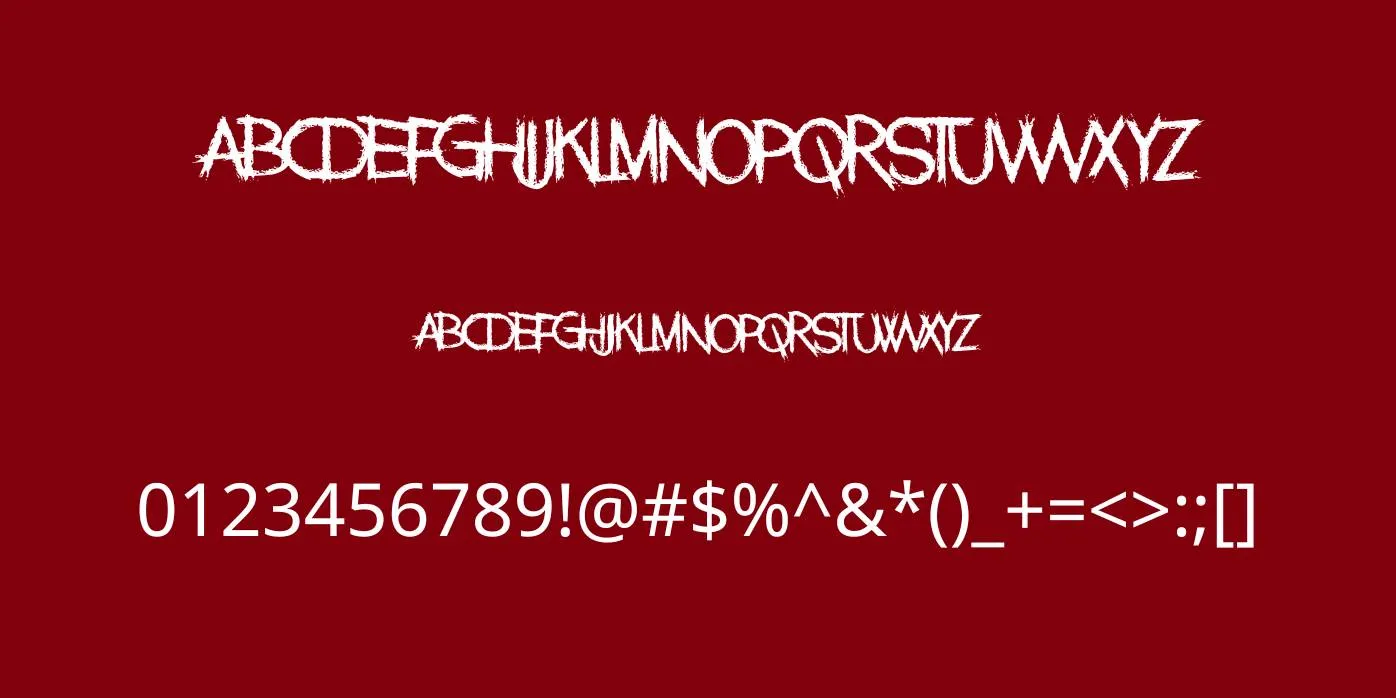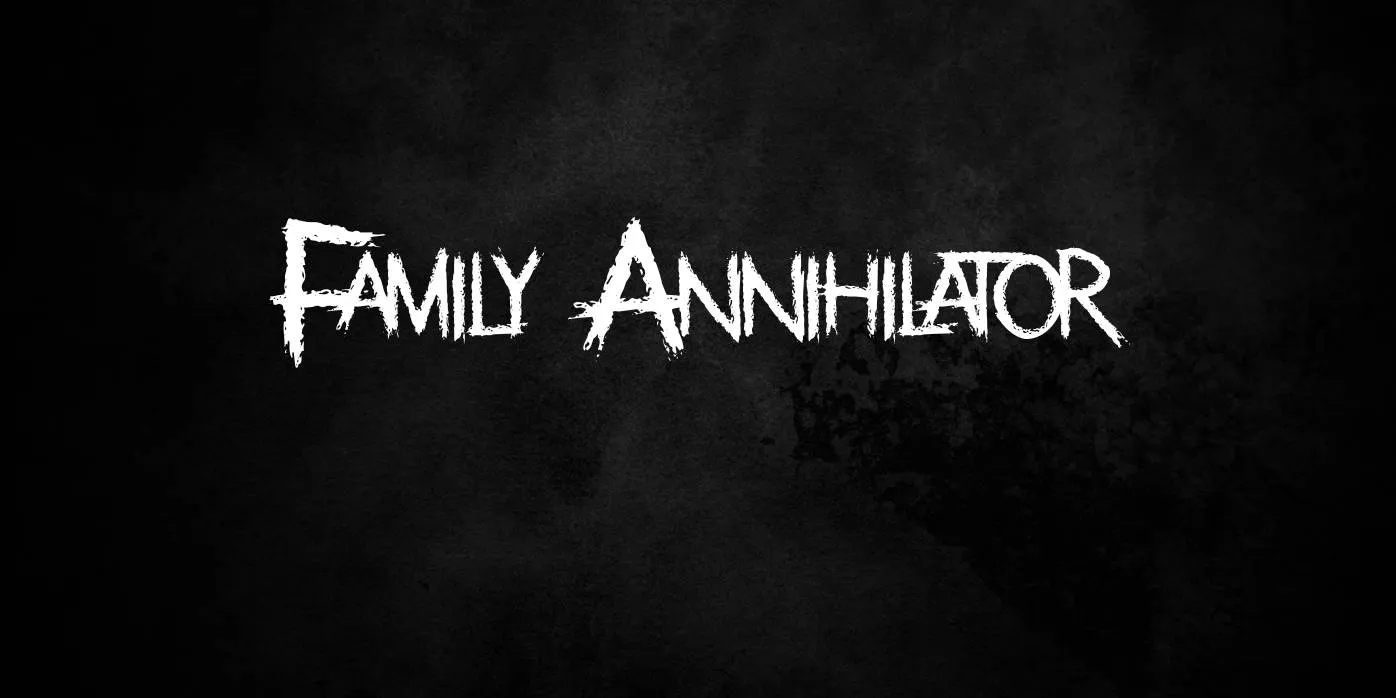
Family Annihilator Font
Today we discuss a very horror look typeface design named Family Annihilator font. This stunning font was designed by Font Monger that belongs to the fancy texture family. You can make so many horror projects by using this font. It has many different features like 57 characters, 56 glyphs.
The font weight and its width is medium that you can download in both TTF (True Type Font) and OTF(Open Type Font) file formats.  An online generator tool is also available in which you can copy and paste your text and convert it into a very stylish or scary look with this font. You can use this font for pairing with other fonts like hogan mania font to give a more attractive look to your projects. Usage This font can be read easily so you can use It for many projects. You can make attractive logos and titles for any kind of horror movie or TV series.
Family Annihilator font was designed by Font Monger and belongs to the fancy texture family. You can make so many horror projects by using this font. Is Family Annihilator Font a default Font? No, it is not a default font if you want to use this font in your projects you must download the zip file.